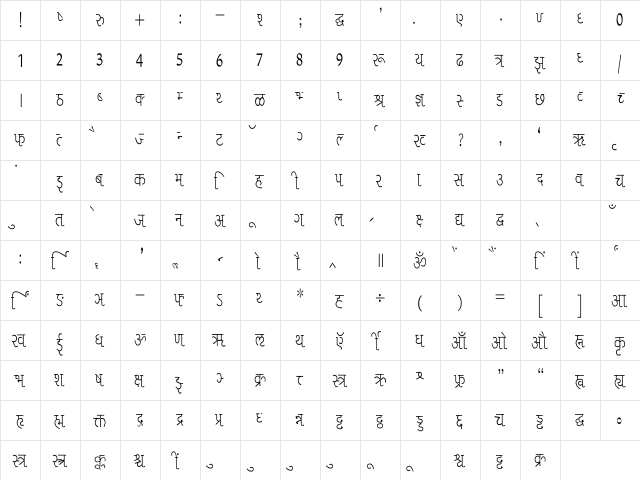
Liza Condensed Regular
Design Context for Liza Condensed Typeface
Liza Condensed takes a measured approach to typography — its balanced proportions and neutral character make it a reliable workhorse for both digital and print work. The condensed width makes it efficient for tight spaces without sacrificing legibility.